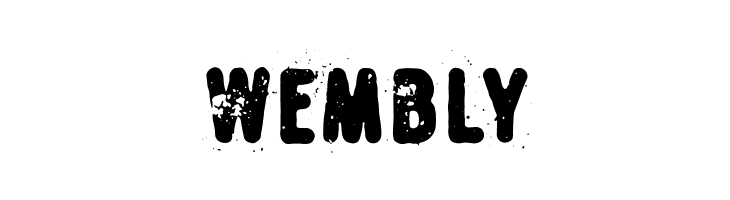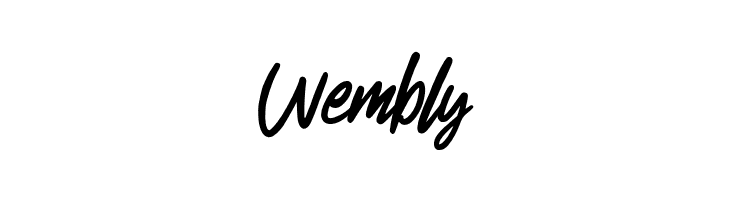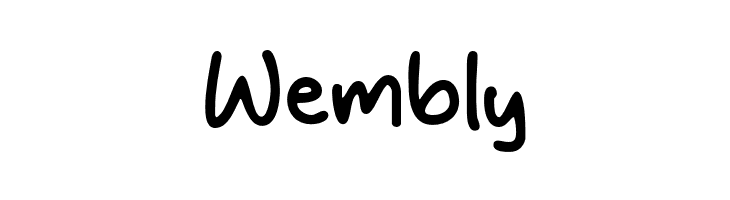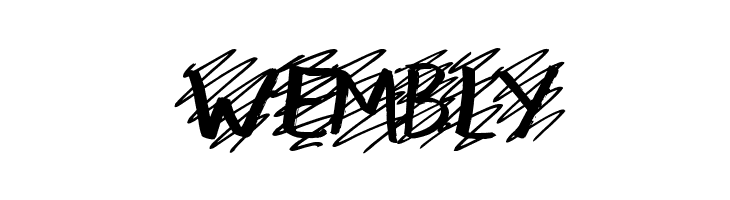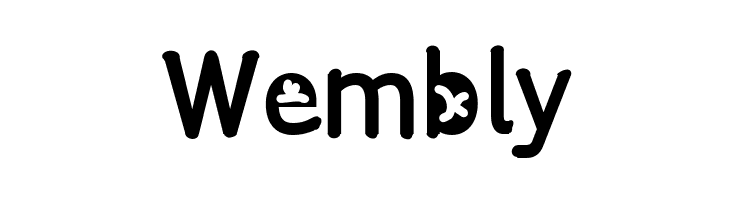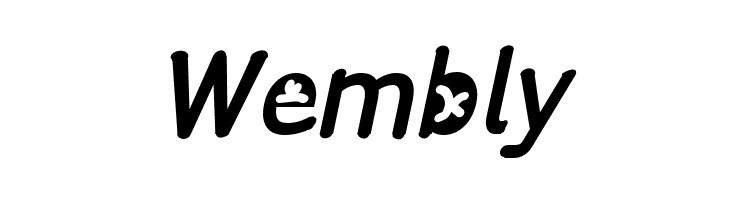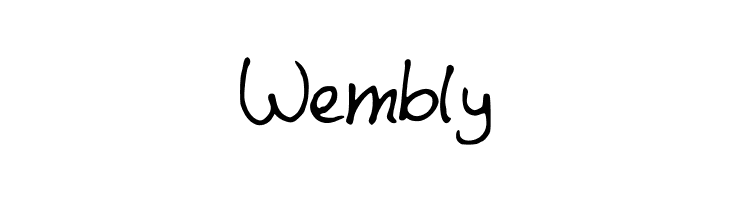
Same_Mistake Font
A playful, handwritten font with a casual and informal style.
Mascara Mistake Font
A decorative font with a fragmented, abstract style and a distressed aesthetic.
my mistake Font
A bold, dynamic script font with a hand-drawn, energetic style.
Mistake Note Font
Casual handwritten font with rounded, playful strokes.
MistageCaps-Demo Font
A bold, distressed font with a vintage, textured appearance.
MISTA BIG Font
A bold, graffiti-inspired font with thick, rounded strokes and a playful urban aesthetic.
Mistari Free Font
An elegant, flowing script font with graceful loops and swirls.